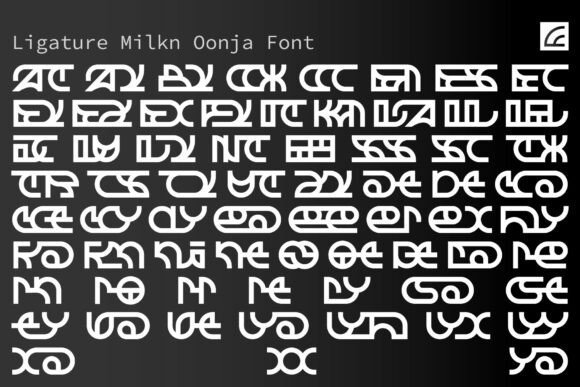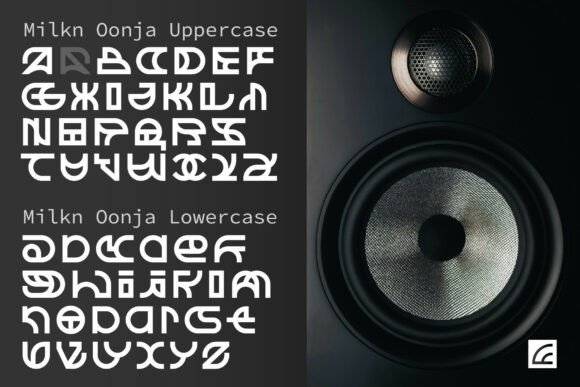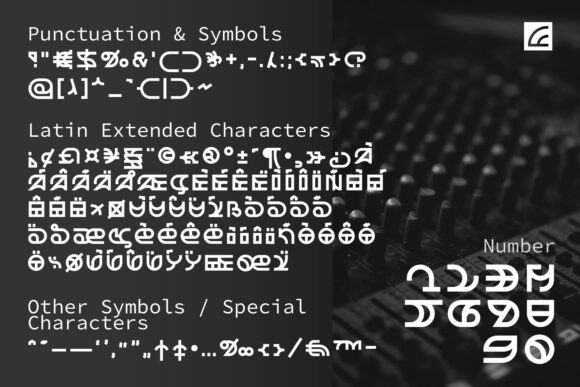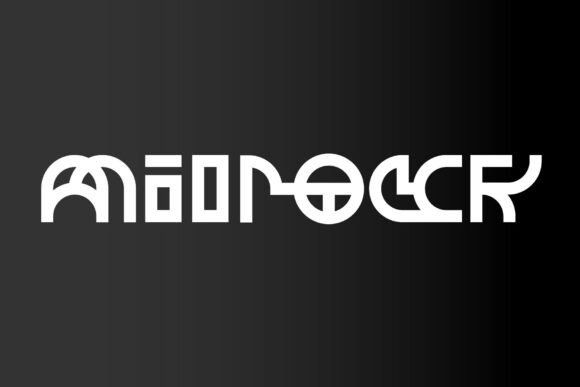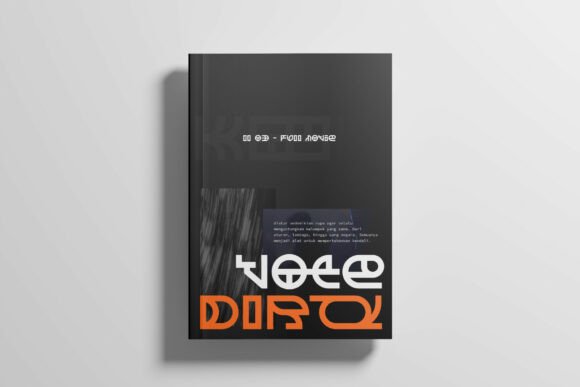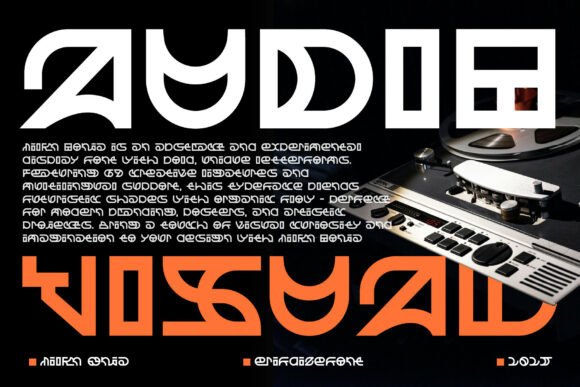
Introduction to Milkn Oonja Font
Remember that moment when you stumble upon the perfect design resource, and it instantly elevates your entire creative project? For designers, discovering a versatile and modern font can be just that game-changer. One such gem is the Milkn Oonja Font, an experimental, geometric display font that has been making waves in the design community.
With its bold structure and smooth, rounded transitions, Milkn Oonja Font offers a unique visual identity that feels both innovative and approachable. Its clean and expressive personality makes it perfect for large headlines, visual branding, and even digital-focused projects. Whether you’re working on a logo, poster, or UI/UX design, this font’s balance of soft curves and solid geometric construction will give your project a modern, forward-looking aesthetic.
Key Features of Milkn Oonja Font
- Unique characteristics include a modern and elegant aesthetic
Honest Review: Milkn Oonja Font
As a designer, I’m always on the lookout for unique and high-quality design resources to enhance my creative projects. Recently, I stumbled upon the Milkn Oonja Font, and I must say, it’s a great addition to any design collection.
- ✨ Unique and elegant design style that adds a touch of sophistication to any project.
- ✨ High-quality vector graphics that maintain their crispness even at larger sizes.
- ⚠️ Limited font styles and weights, which may not be ideal for designers requiring a wide range of options.
- ⚠️ Some users may find the font’s elegant style too conservative for more modern or edgy designs.
Overall, the Milkn Oonja Font is a solid choice for designers seeking a high-quality, elegant font for their creative projects. While it may not be the most versatile option, its unique design style and high-quality graphics make it a valuable addition to any design collection.
Tips for Getting the Most Out of Milkn Oonja Font
For the best results, use Milkn Oonja Font in conjunction with a transparent background to create a high-quality design. Experiment with different font sizes, colors, and styles to get the most out of this design resource.
Milkn Oonja Font is ideal for creative projects such as graphic design, logo creation, and digital art. It’s also a great choice for designers who need a unique and stylish font for their design resource.